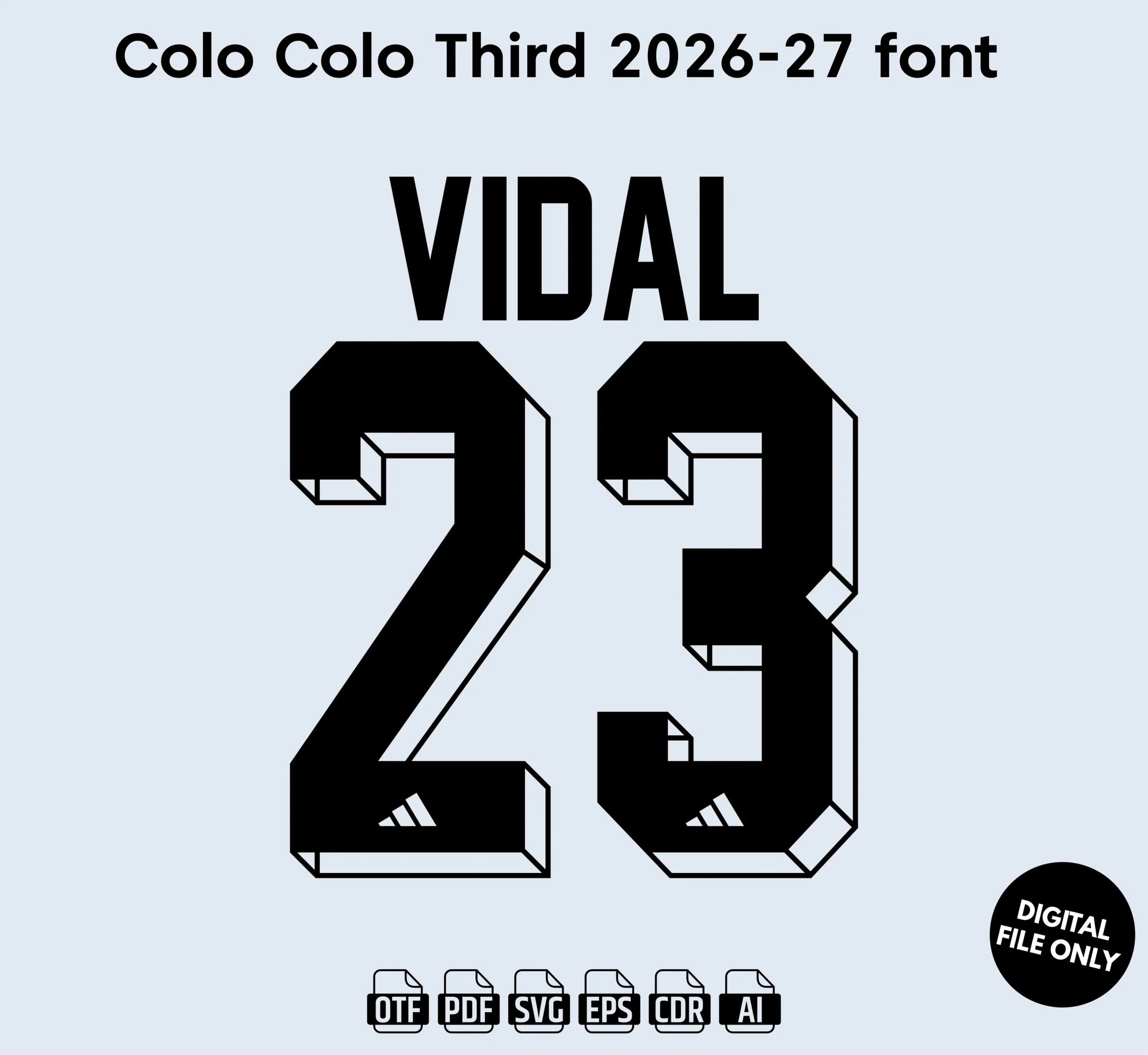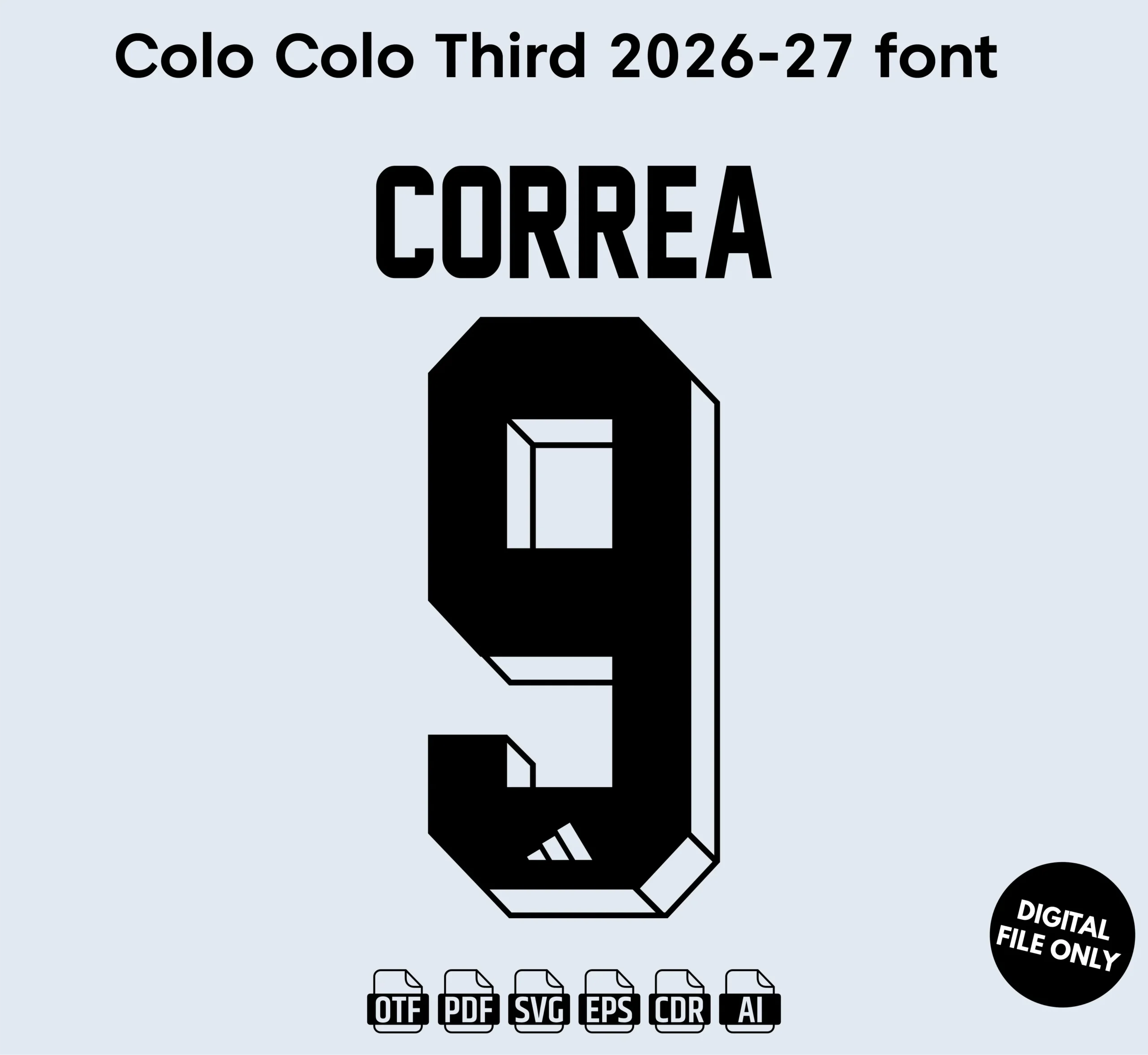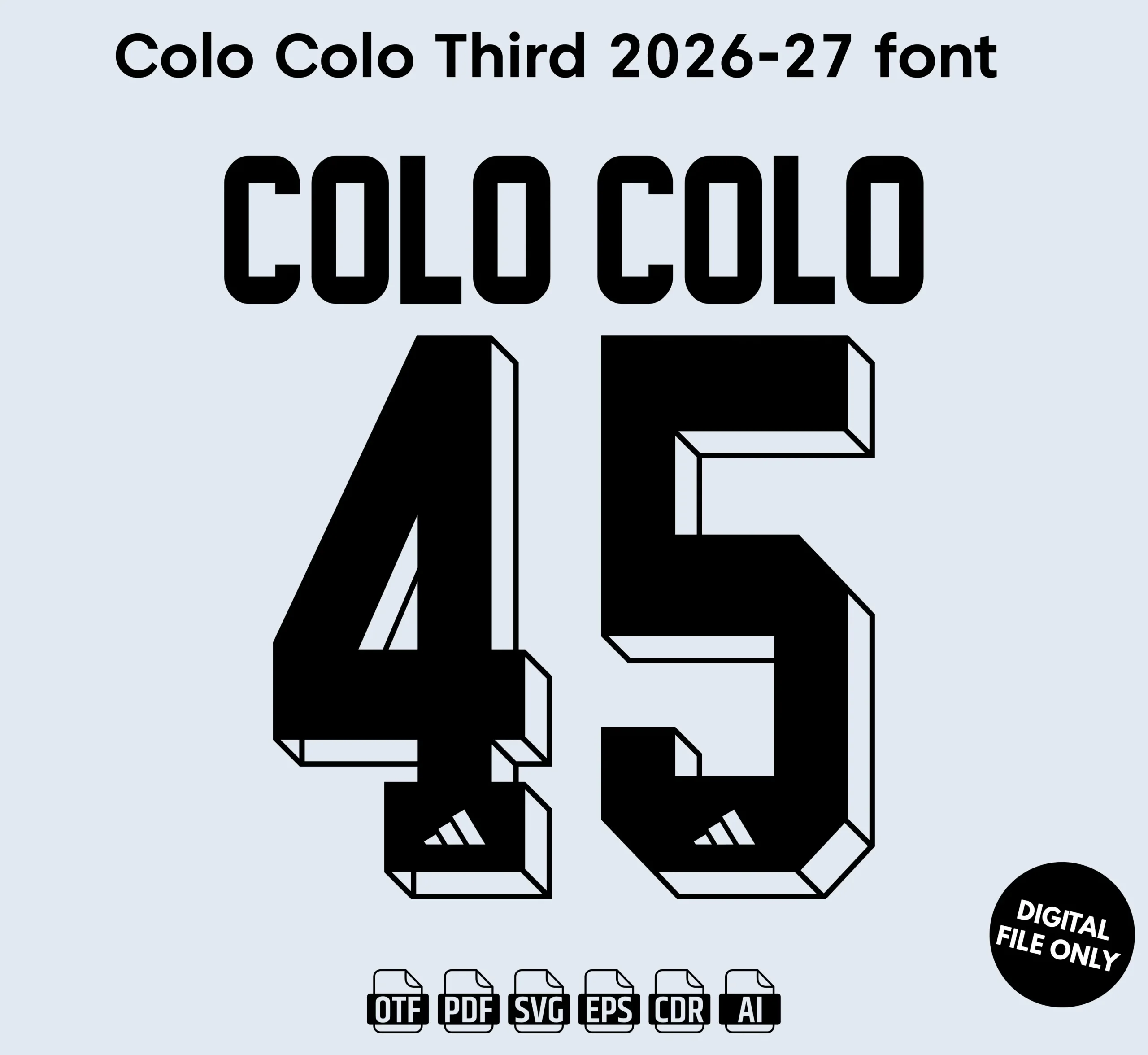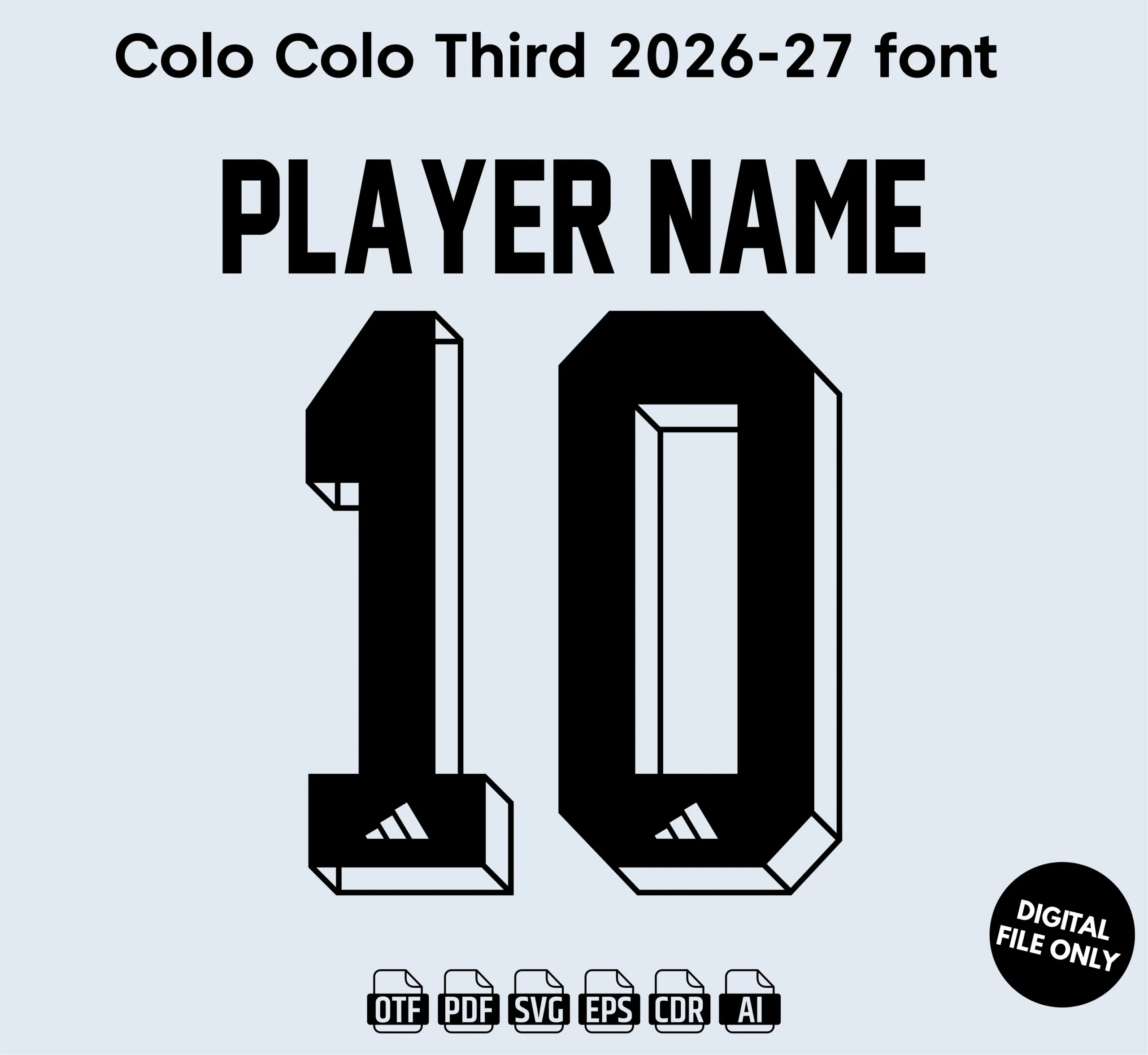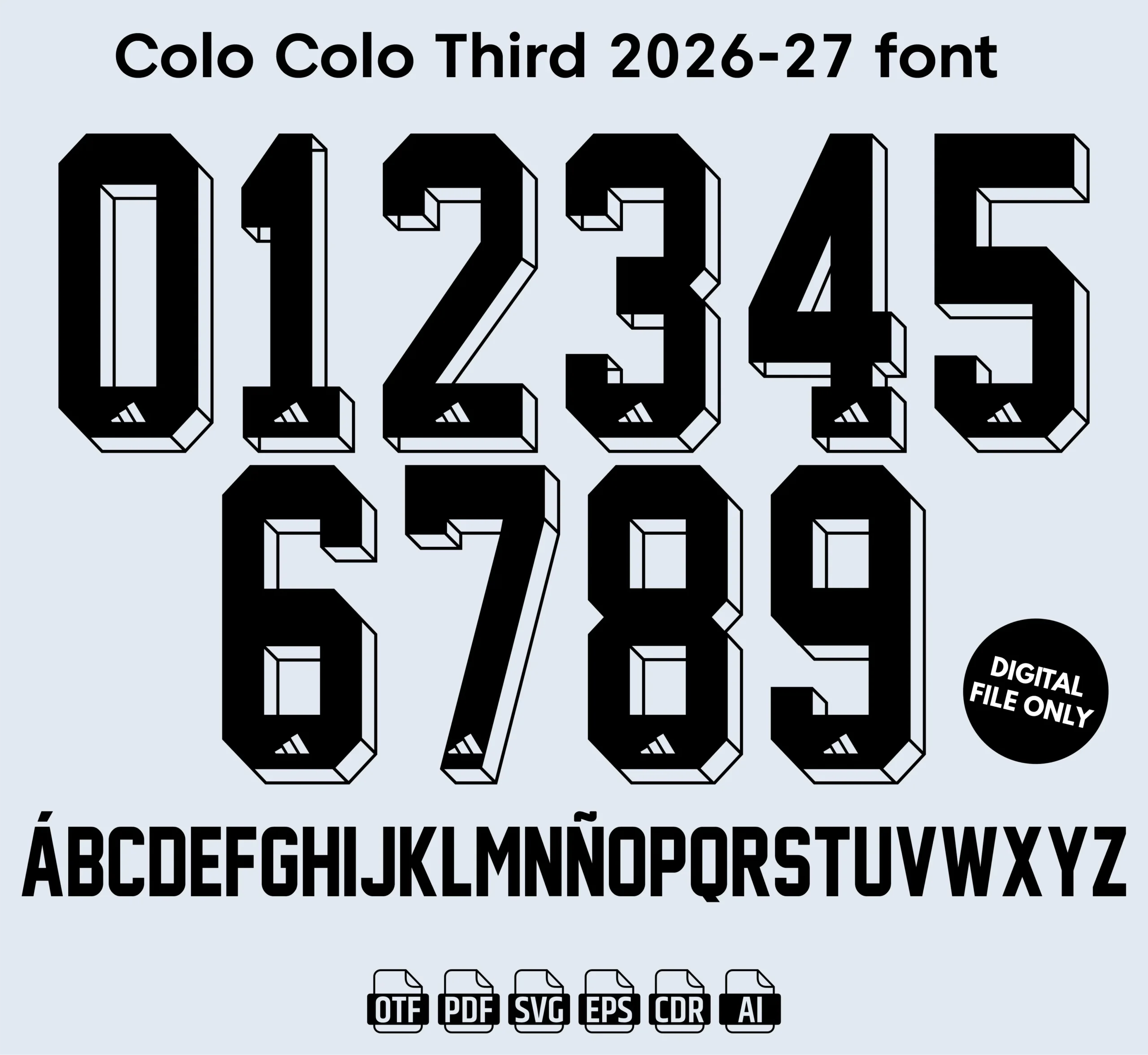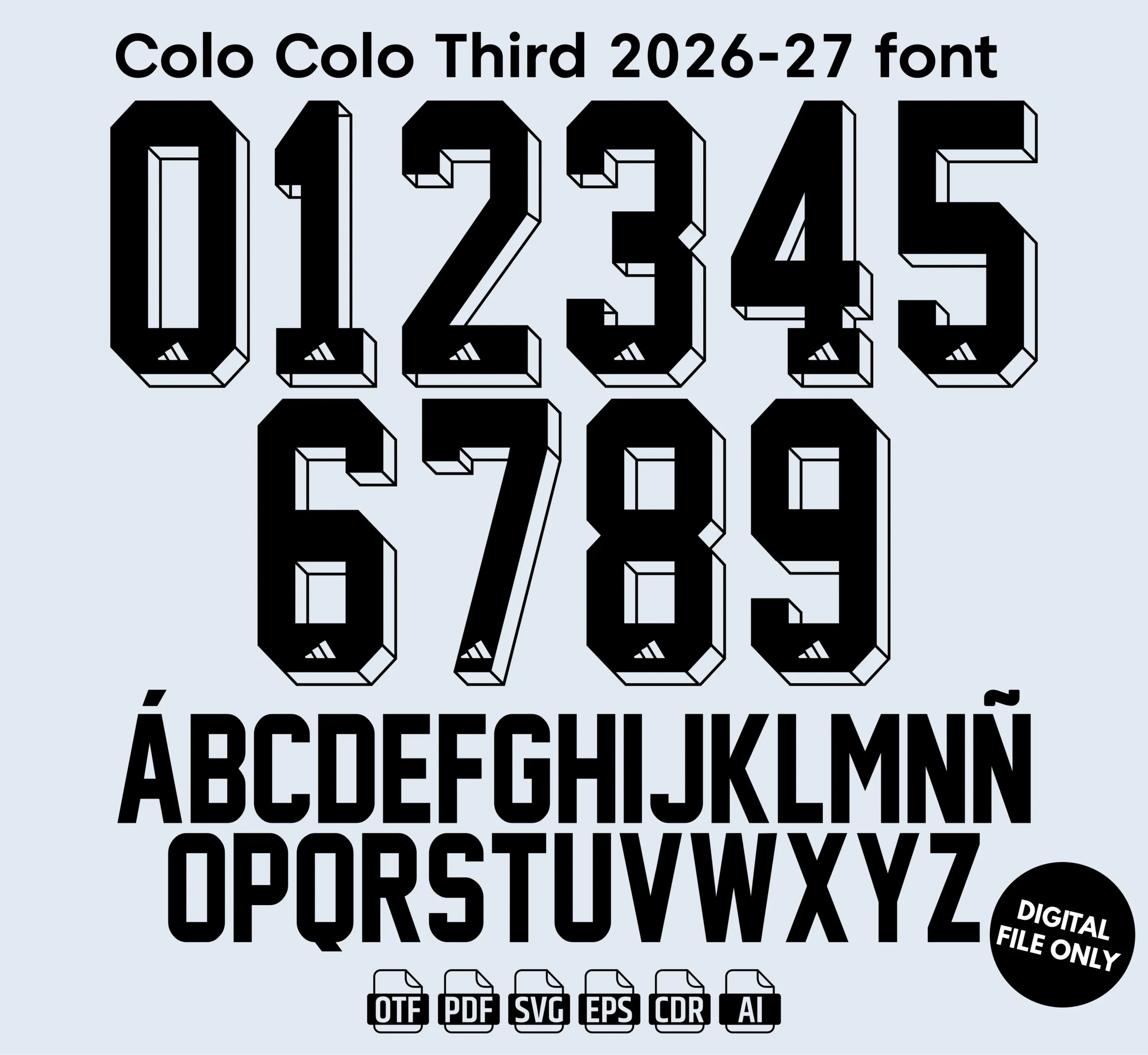
Colo Colo Third 2026 Font – Football Jersey Typeface Download
Colo Colo Third 2026 Font – Premium Football Jersey Typeface
Give your football designs a professional match-day appearance with the Colo Colo Third 2026 Font. This football jersey-style typeface is inspired by the typography featured on the club’s third kit and is perfect for creating authentic-looking names, numbers, custom jerseys, and sports graphics.
• Clean football jersey-style typography
• Professional lettering for sports designs
The Colo Colo Third 2026 Font gives your designs a sharp, professional, game-ready appearance. Whether you’re creating a custom football shirt, preparing a sublimation design, making a jersey mockup, or designing sports content, this typeface is ideal for football-focused creative projects.